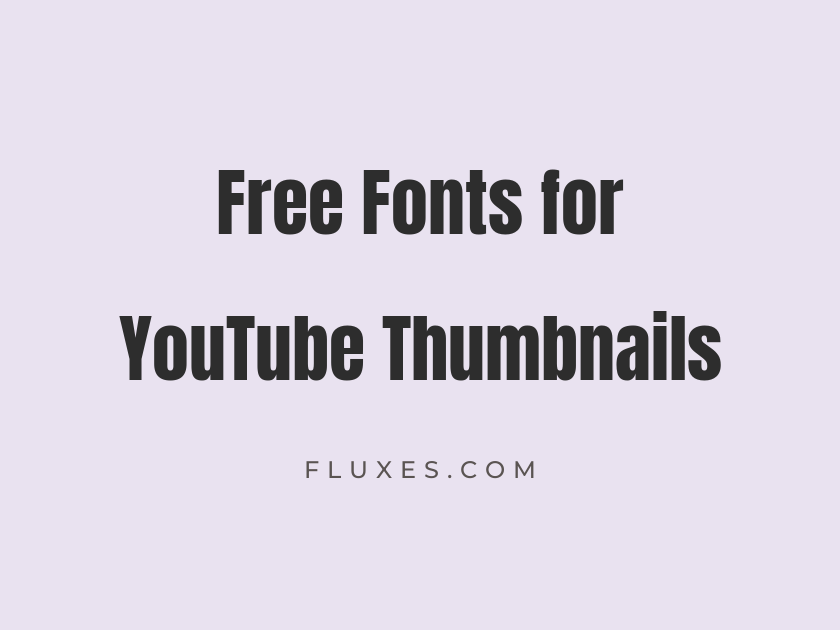
64 Best Free Fonts for YouTube Thumbnails
Thumbnail text has one job: stop the scroll and read clearly at postage-stamp size on a phone screen. That means the best fonts for this work are bold, high-contrast, and confident, with letterforms that hold together even when squeezed next to a face, an arrow, or a big red circle. Free Google Fonts cover this territory extremely well, from screaming display faces built for shock value to sturdy condensed sans fonts that fit a long headline into a tight banner without turning to mush.
Whether you’re building a gaming channel, a vlog, a tutorial series, or a finance and news thumbnail template, the fonts below are the ones creators reach for again and again when they need bold, free, download-ready type that reads instantly at small sizes.
1. Anton
WATCH THIS BEFORE YOU BUY
Anton is close to a default for YouTube thumbnails, and for good reason. Its ultra-condensed, ultra-bold strokes pack maximum visual weight into minimum horizontal space, so a five-word hook still reads clearly over a busy background image. It has exactly one weight, which is fine, because it was built to be shouted at full volume every time.
2. Bebas Neue
NEW UPLOAD EVERY FRIDAY
The other titan of thumbnail typography, Bebas Neue trades Anton’s extreme bulk for tall, elegant caps with cleaner negative space. It feels a touch more polished and editorial, which makes it a favorite for lifestyle, travel, and finance channels that still want punch without looking like a shock headline.
3. Archivo Black
THE TRUTH ABOUT SIDE HUSTLES
Archivo Black keeps its letters wide and grounded rather than condensed, giving text a slab-like solidity that reads well even against noisy photo backgrounds. It pairs naturally with Archivo’s regular weight for any accompanying description text.
4. Alfa Slab One
MASSIVE UPGRADE REVEALED
Thick, slab-serif, and almost cartoonishly heavy, Alfa Slab One is built for the one or two words that need to dominate the frame. Use it sparingly; at long sentence lengths it gets visually heavy fast.
5. Passion One
I TRIED IT FOR 30 DAYS
A rounded, friendly slab-sans with real heft in its black weight, Passion One softens the aggression of pure impact fonts while staying plenty bold for thumbnails.
6. Bangers
EPIC FAIL COMPILATION
Modeled on vintage comic-book lettering, Bangers brings built-in energy and a slightly wobbly, hand-inked edge that suits gaming, comedy, and reaction content. It reads as loud and fun rather than corporate, which is exactly the point.
7. Fredoka
KIDS REACT TO THIS TOY
Fredoka’s soft, rounded terminals give it a bubbly, approachable warmth that works well for family, kids, and lighthearted lifestyle channels. It stays legible at small sizes without feeling as aggressive as most thumbnail staples.
8. Montserrat
10 TIPS YOU NEED TO KNOW
Montserrat in its black weight is a dependable, geometric workhorse. It lacks the personality of a true display face, but that restraint is an asset on thumbnails that also carry a logo or channel branding, since it never fights for attention.
9. Oswald
BREAKING NEWS THIS WEEK
A condensed, grotesque-inspired sans with roots in early twentieth-century signage, Oswald has an authoritative, headline-ready feel that suits news, commentary, and explainer channels. Its narrow proportions let you fit more words per line than most bold display fonts allow.
10. Rubik
THE BIGGEST MISTAKE EVER
Rubik’s slightly rounded corners keep its black weight from feeling harsh, making it a versatile choice for tech reviews and how-to content that wants boldness without edge.
11. Righteous
LEVEL UP YOUR SETUP
Righteous has a retro, slightly futuristic art-deco flavor with wide, confident letterforms. It’s a strong pick for gaming and tech thumbnails aiming for a bit of stylized flair instead of plain block capitals.
12. Luckiest Guy
YOU WON'T BELIEVE THIS
Chunky, bouncy, and unapologetically cartoonish, Luckiest Guy looks like it belongs on a kids’ cereal box, which makes it perfect for comedy, prank, and reaction thumbnails chasing maximum clickable energy. It gets muddy in long sentences, so save it for short punchy phrases.
13. Baloo 2
COOKING HACKS THAT WORK
Baloo 2 rounds every corner just enough to feel friendly without losing bulk, giving it a warm, casual voice that suits food, DIY, and family vlog thumbnails.
14. Titan One
ULTIMATE BOSS FIGHT GUIDE
Inflated, glossy-looking letterforms with a slight 3D bounce make Titan One a natural for gaming thumbnails that want a bubble-lettering, arcade feel straight out of the box.
15. Bungee
STREET STYLE HAUL 2024
Bungee borrows its attitude from urban signage and stencil lettering, giving it a graphic, poster-like presence. It reads best in short, punchy words rather than full sentences.
16. Bungee Inline
LIMITED TIME OFFER INSIDE
Keep word count low. Three to six words in a genuinely bold face will always outperform a full sentence squeezed into a shrinking font size.
With so many strong, genuinely free options on Google Fonts, there is no real reason to reach for a pirated copy of a paid display face. Download a handful of these, build a couple of reusable thumbnail templates around them, and you will have a type system that reads clearly whether it is filling a living room television or a two-inch phone screen.